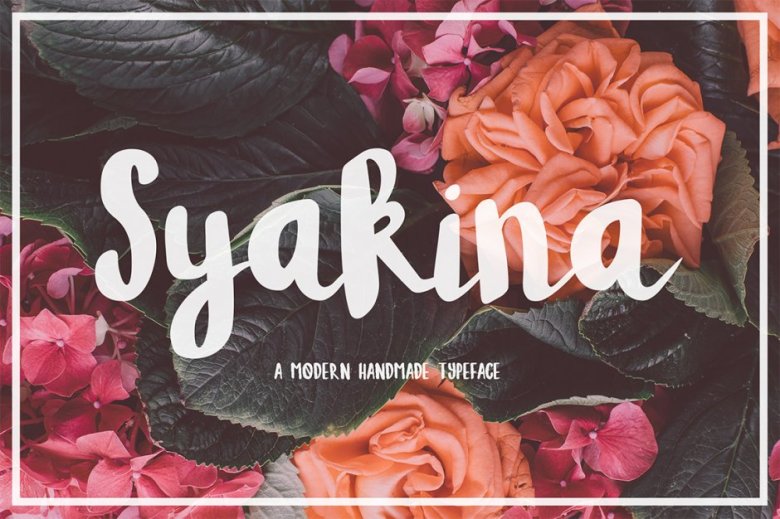
Syakina Brush Font
Hi there! Syakina Brush Font is a unique display-script font for romantic/beautiful design style. Syakina script is a hand brushed font created with a brush and ink, bold and irregular baseline.
This font ideal for use in watercolor design or lettering style bold hand, such as blog header, posters, wedding elements, t-shirt, apparel, cover books, business cards, greeting cards, branding, merchandise, invitations and handmade quotes and more.